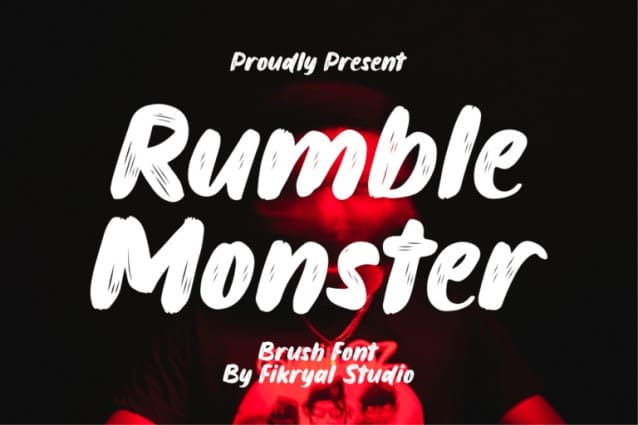
Rumble Monster Font
Rumble Monster Font – Brush Display is a type of brush font that possesses strong and energetic characteristics. Designed with bold brush strokes, this font showcases thick lines that exude a brave and enthusiastic impression. Each letter appears as if it has been swept with quick and rough movements, creating a casual yet captivating look.
With its expressive appearance, Rumble Monster Brush Display captures attention with its stunning handwriting style. This font is suitable for designs that require a unique and striking touch, such as posters, titles, or other creative graphics. The boldness and power of this font reflect a spirit of expressing oneself with courage and creativity.
With Rumble Monster Brush Display, you can infuse a sense of bravery and enthusiasm into your design projects. This font provides a joyful and refreshing impression, reminding us to continually face challenges and pursue our dreams with courage.